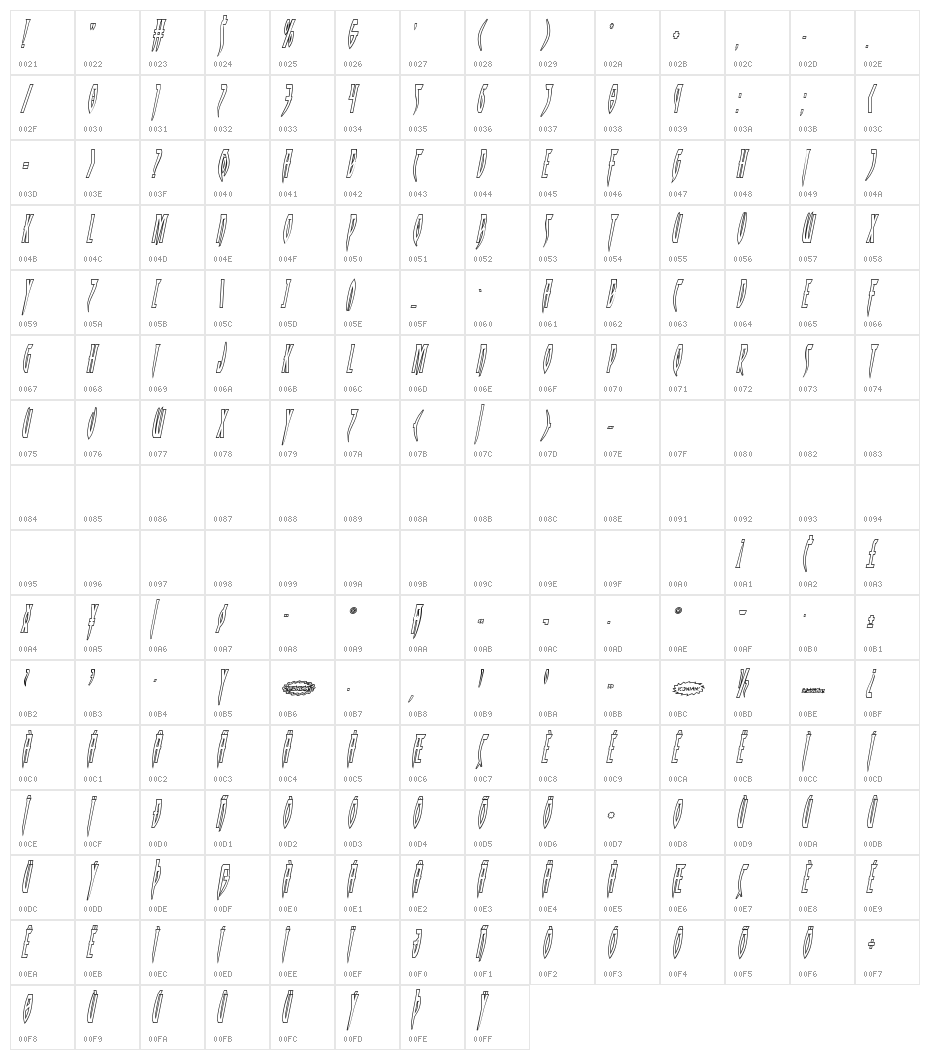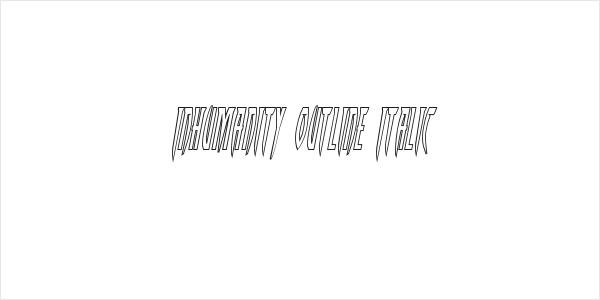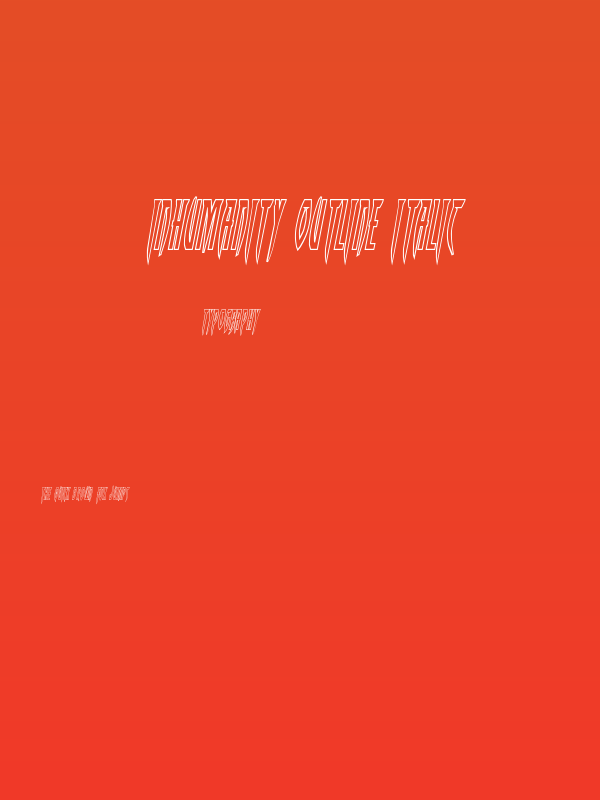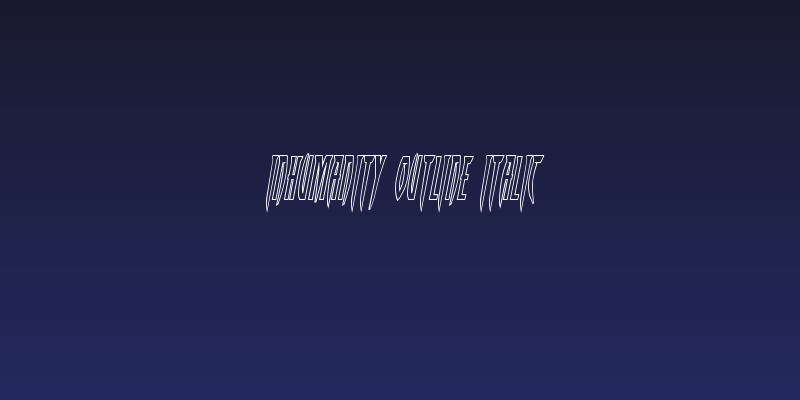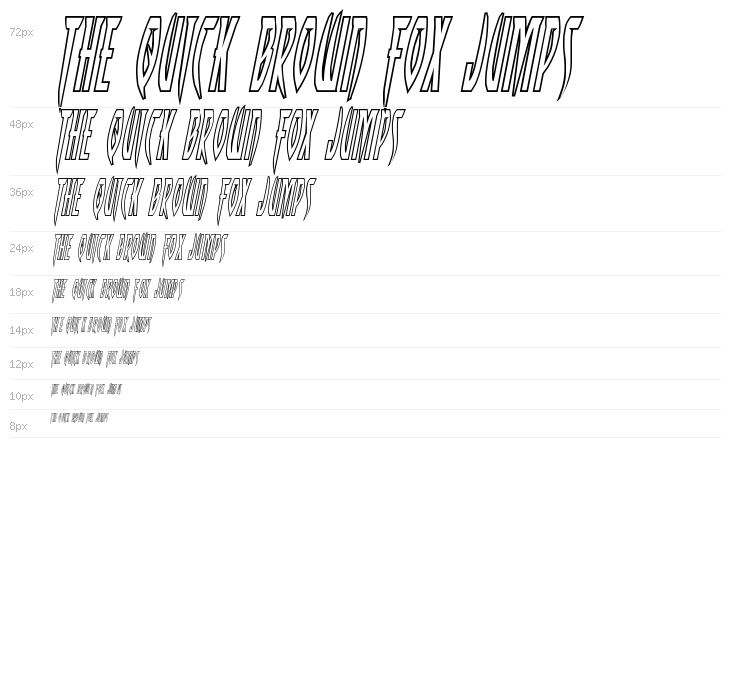
Inhumanity Outline Italic Font
Inhumanity Outline Italic Description
This font features an outline style with a distinct italic slant, giving it a dynamic and edgy appearance. The characters are elongated and angular, creating a sense of movement and urgency. The uppercase and lowercase letters maintain a consistent style, with sharp edges and a futuristic feel. The numbers and special characters are designed to match the overall aesthetic, ensuring a cohesive look across all elements. This font's unique outline and italicized form make it stand out, ideal for projects that require a bold and modern touch.
| Proposed Projects | Ideal for sci-fi themed designs, posters, video game titles, and edgy branding projects. |